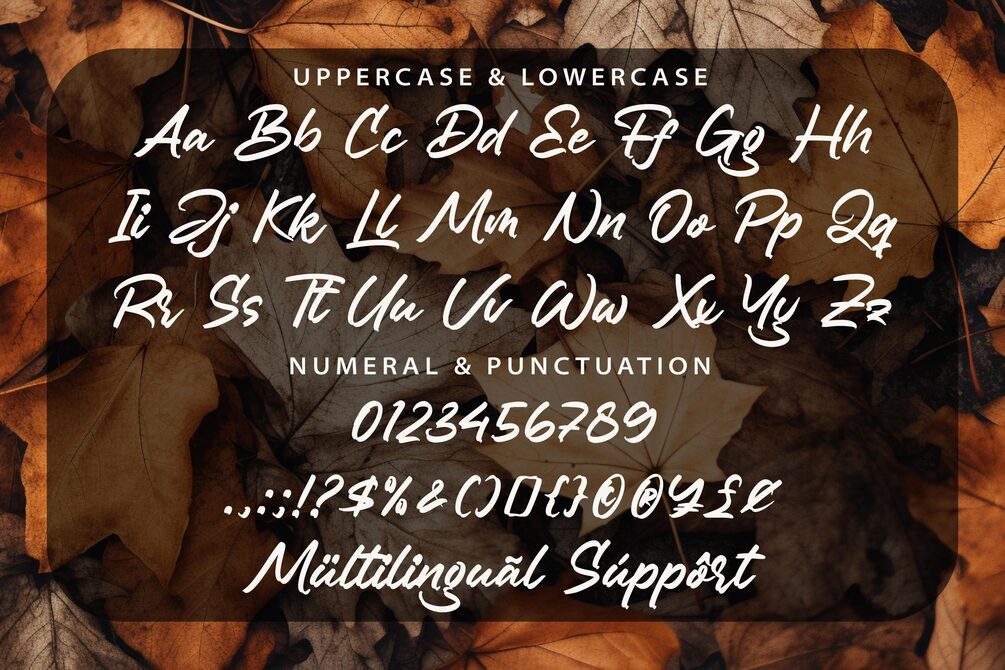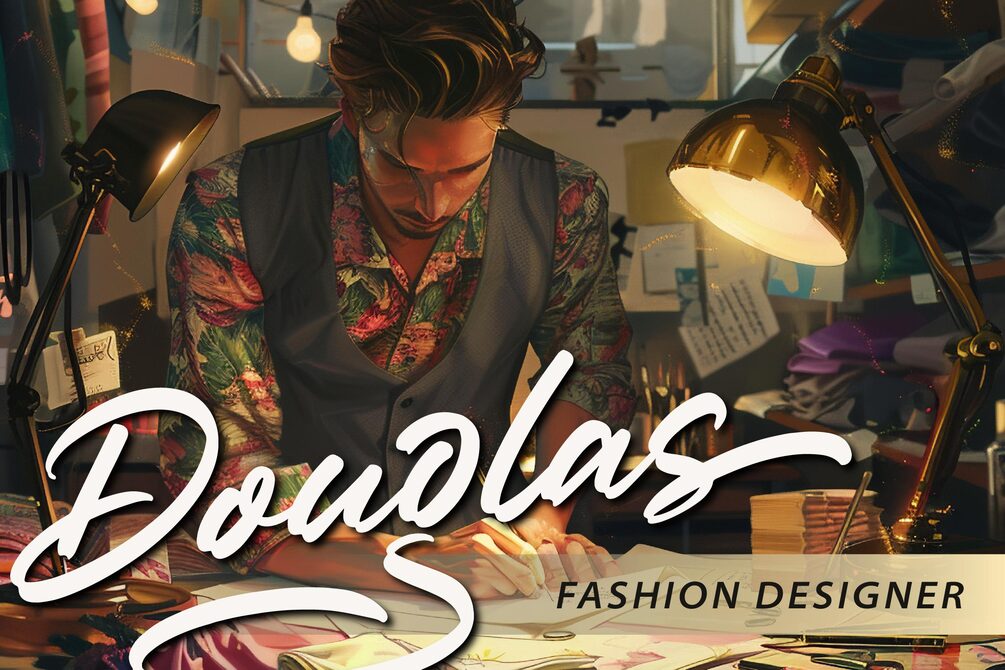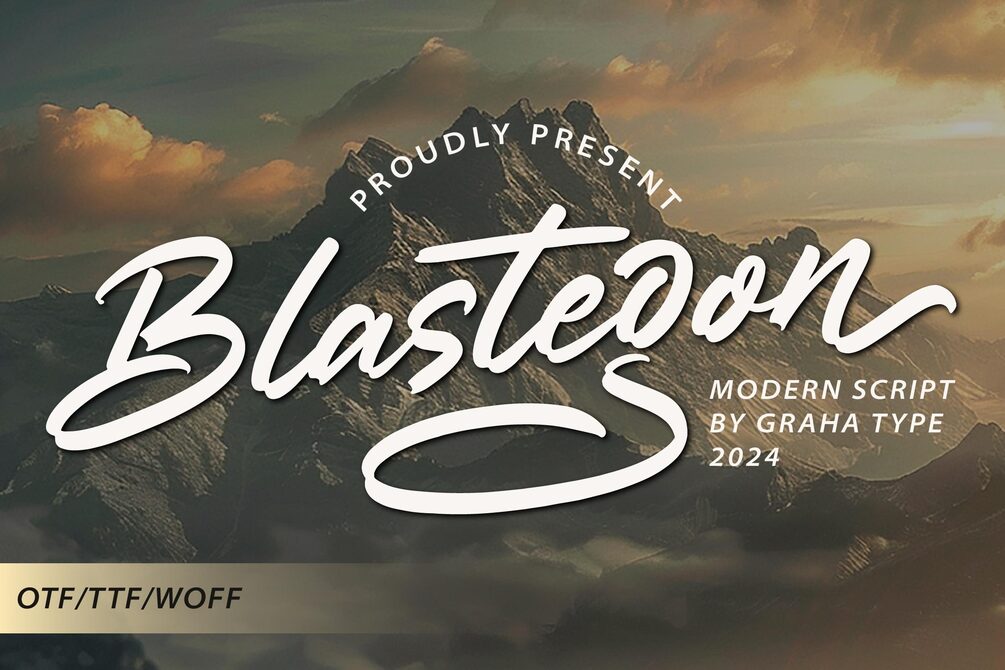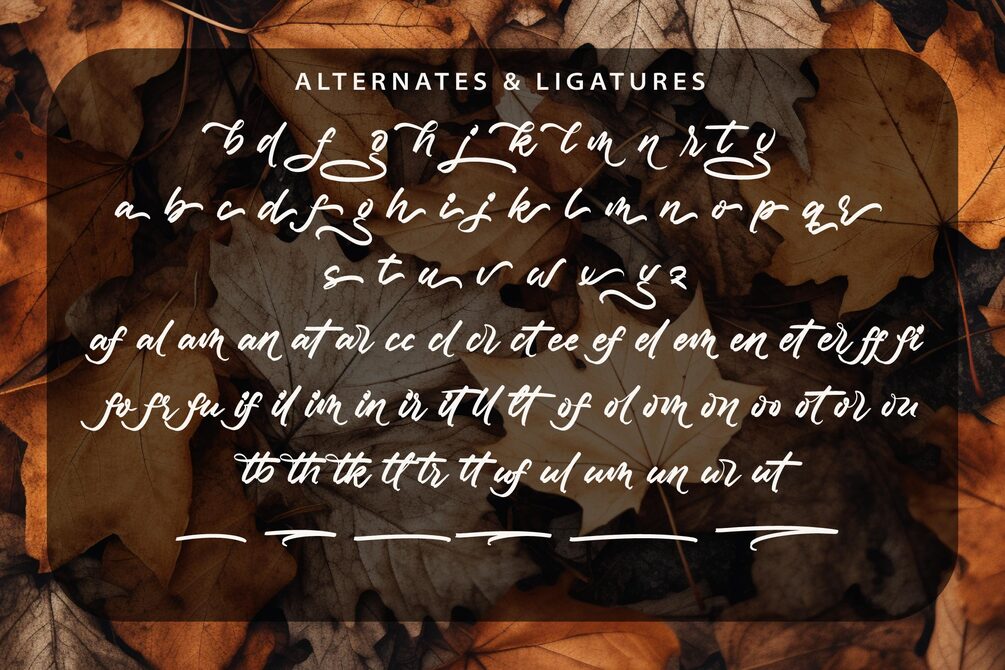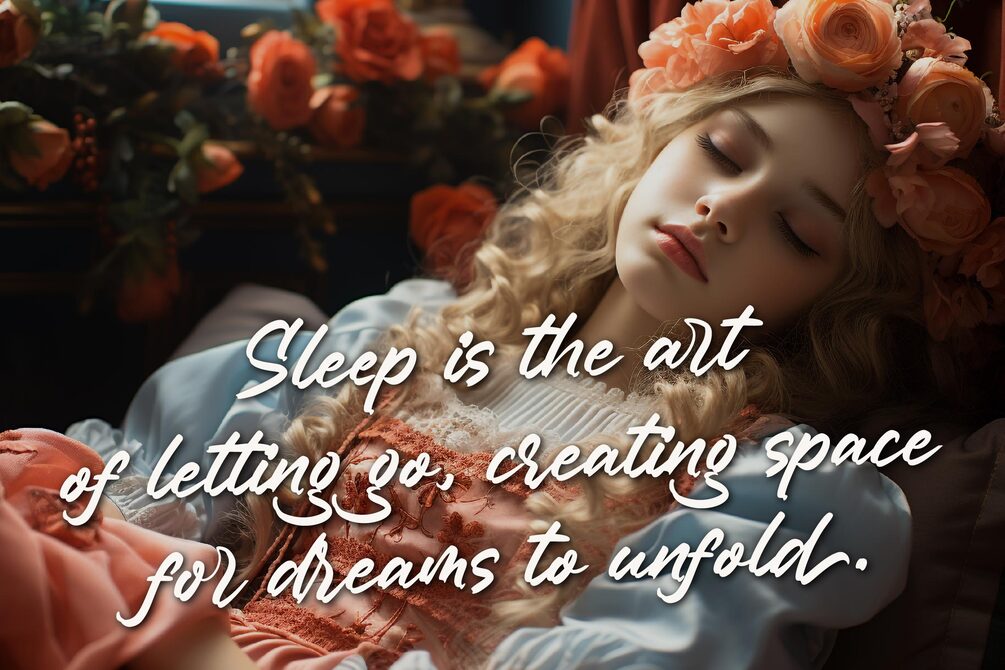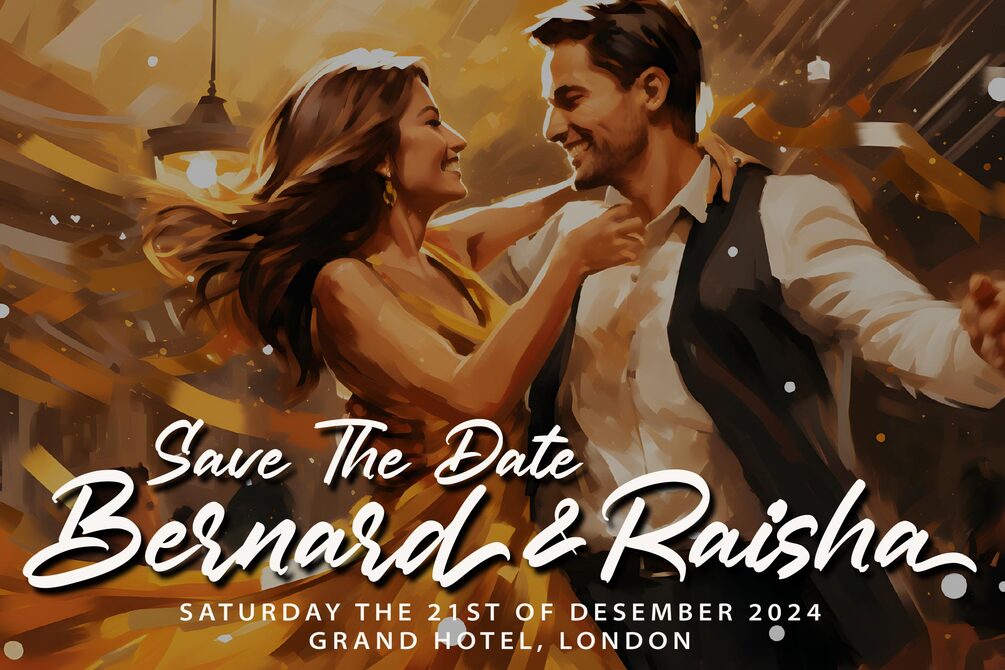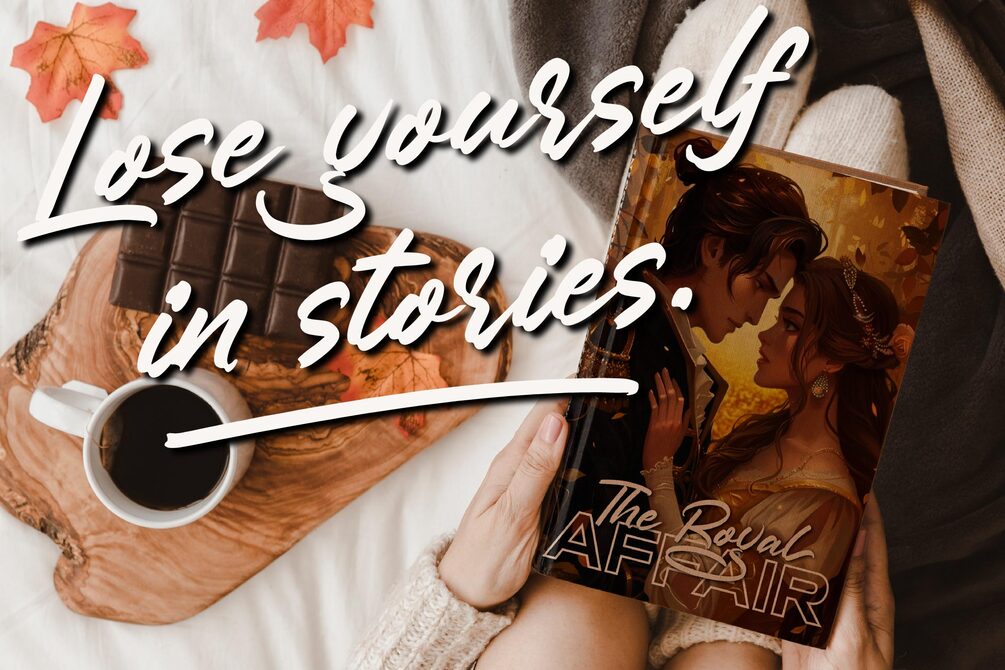
Blastegon - Modern Script Font
Blastegon is a modern font featuring a simple yet unique design, making it perfect for logotypes and branding that aim to stand out. This font is also ideal for posters and other visual materials, delivering strong visual appeal while maintaining readability.